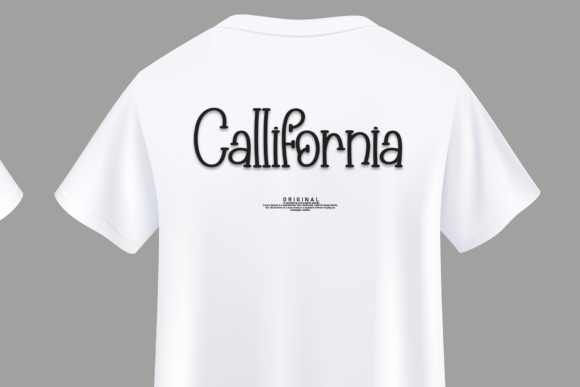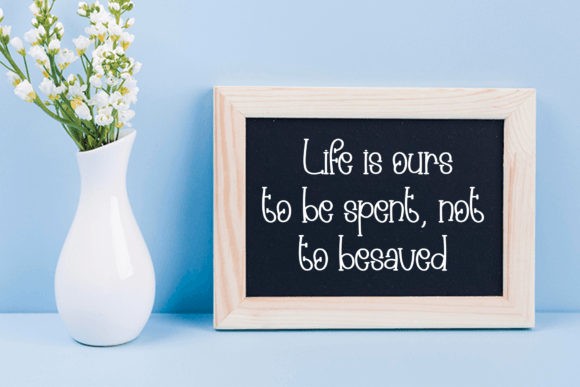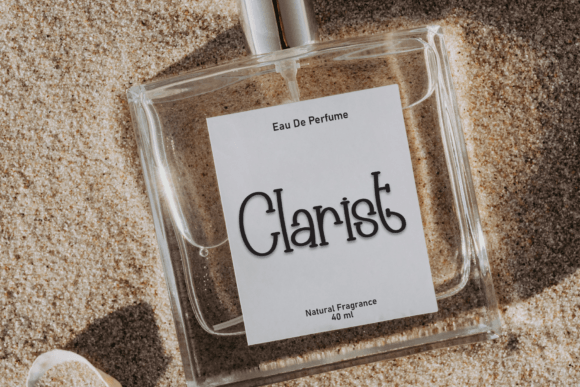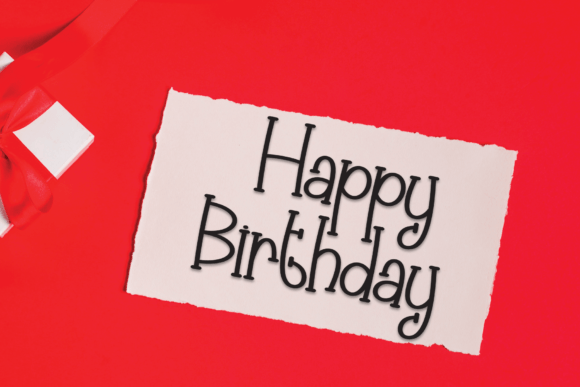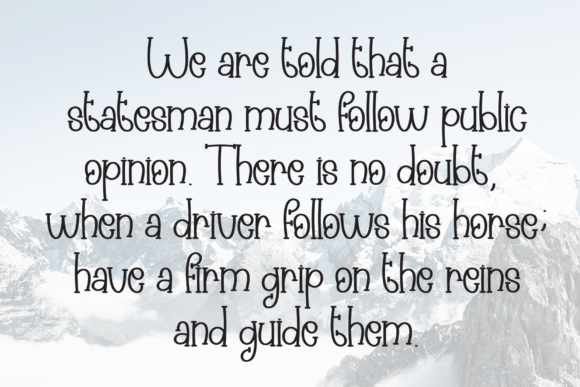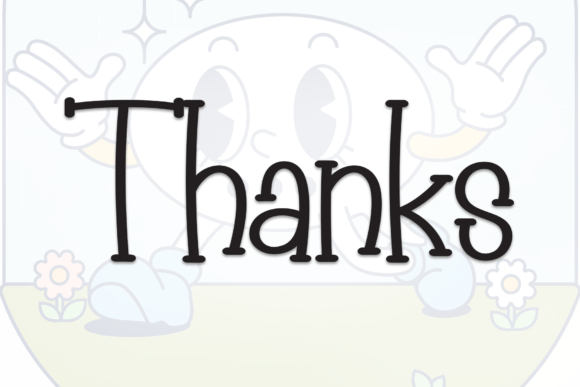
Introduction to Simple Cartoon Font Font
Fonts play a crucial role in design, and the Simple Cartoon Font font is a typeface that brings both character and versatility to any project. Whether you’re working on a branding project, a website, or a print design, the Simple Cartoon Font font offers a unique style that can elevate your work.
SImple Cartoon is a sweet and friendly handwritten font.
Key Features of Simple Cartoon Font Font
• ✅ High-quality typeface designed for professional use
• ✅ Includes a wide range of glyphs and characters
• ✅ Ideal for logos, branding, websites, and print
Why Choose Simple Cartoon Font Font?
The Simple Cartoon Font font is more than just a typeface – it’s a design tool that helps you communicate your message with style and clarity. Its unique character set and versatile design make it suitable for a wide range of applications, from elegant invitations to bold headlines.
With its carefully crafted letterforms and balanced proportions, the Simple Cartoon Font font ensures readability and visual appeal across all mediums.
What makes Simple Cartoon Font font special?
The Simple Cartoon Font font stands out with its unique design, exceptional readability, and versatility across various design applications.